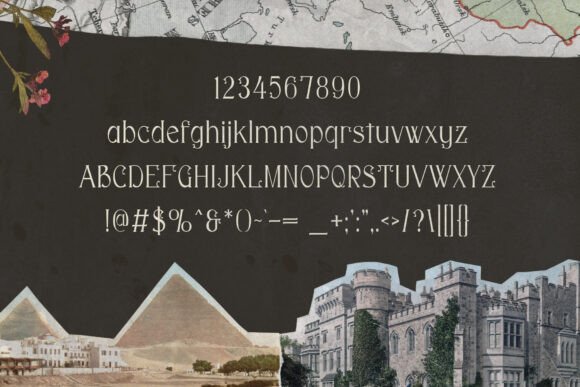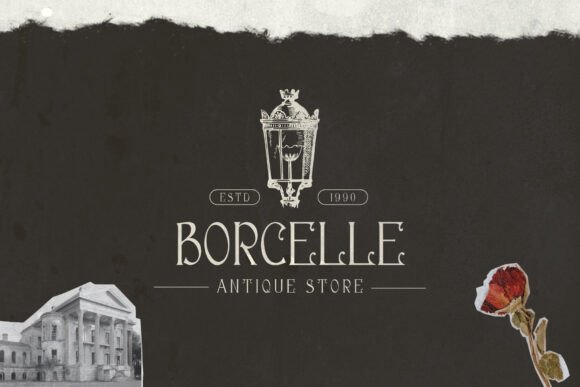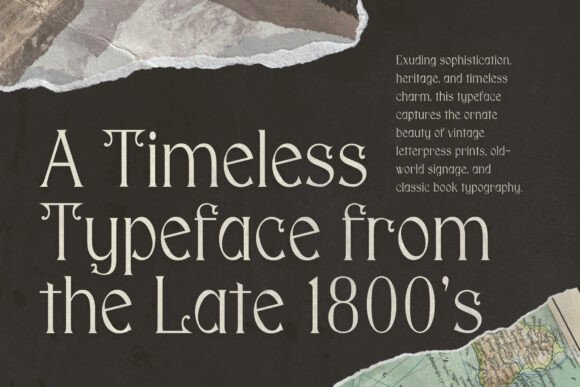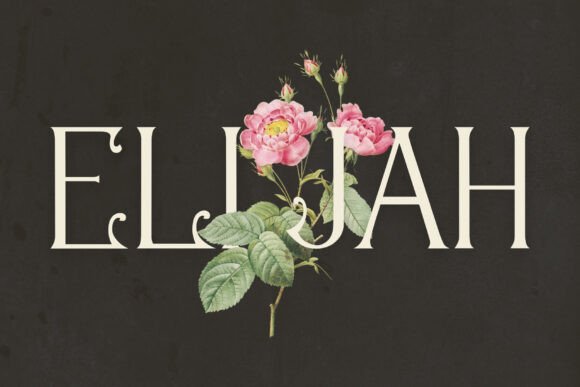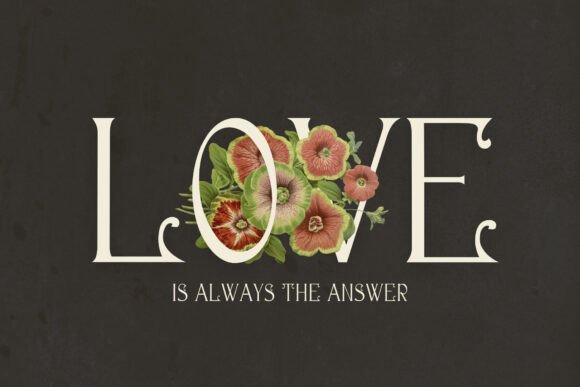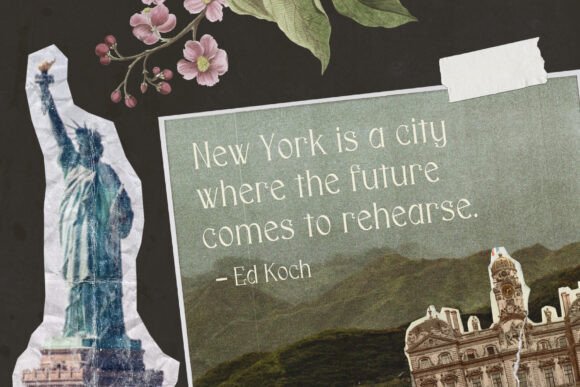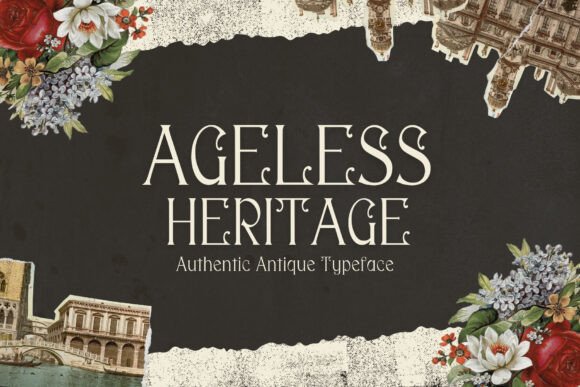
Discover the Timeless Elegance of Ageless Heritage Font
I’ll never forget the design project that led me to discover Ageless Heritage Font. I was working on a luxury brand identity for a high-end boutique hotel, and I was struggling to find the perfect font that exuded sophistication, elegance, and a touch of vintage charm. The client wanted a design that felt like stepping into a bygone era, but still felt modern and refined. After hours of scouring font libraries and marketplaces, I stumbled upon Ageless Heritage Font, and it was love at first sight ✨.
As a designer, I’m always on the lookout for fonts that can elevate my work and make it feel more refined. Ageless Heritage Font did not disappoint. Here’s what I love about it:
- ✨ Elegant letterforms: The font features beautiful, refined letterforms that are perfect for luxury branding, editorial design, and high-end invitations.
- ✅ Balanced proportions: The font has a great balance of width and height, making it easy to read and visually appealing.
- 💯 Vintage detailing: The subtle vintage details and alternates add a touch of authenticity and charm to the font.
- 👍 Highly functional: Despite its vintage inspiration, the font is highly functional and works well for modern applications.
- 🤔 Limited language support: Ageless Heritage Font may not support all languages, so be sure to check the character set before using it for a project.
- ⚠️ Some glyphs require manual adjustment: A few glyphs may require manual adjustment to get the kerning just right, but this is a minor trade-off for the font’s elegance.
- Experiment with OpenType features like ligatures and stylistic alternates to add visual interest to your design.
Ageless Heritage Font was designed by a team of typographers who wanted to create a font that captured the essence of early 20th-century typography. Inspired by classic fonts from the era, they crafted a typeface that exudes sophistication, elegance, and a touch of vintage charm. The result is a font that’s both timeless and refined, perfect for designers who want to add a touch of luxury to their work.
| What inspired the design of Ageless Heritage Font? | The design of Ageless Heritage Font was inspired by classic fonts from the early 20th century, with a focus on elegance, sophistication, and vintage charm. |
| What is the best use for Ageless Heritage Font? | Ageless Heritage Font is perfect for luxury branding, editorial design, invitations, and high-end signage. |
| Is Ageless Heritage Font suitable for body text? | While Ageless Heritage Font is elegant and refined, it’s best suited for headlines and titles. For body text, a more traditional font may be more suitable. |